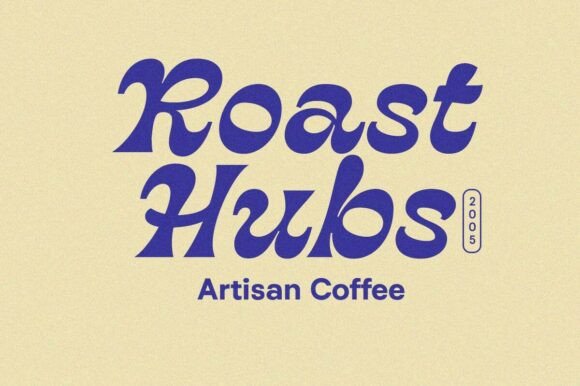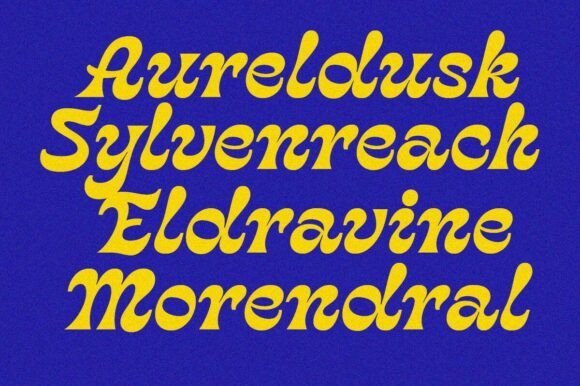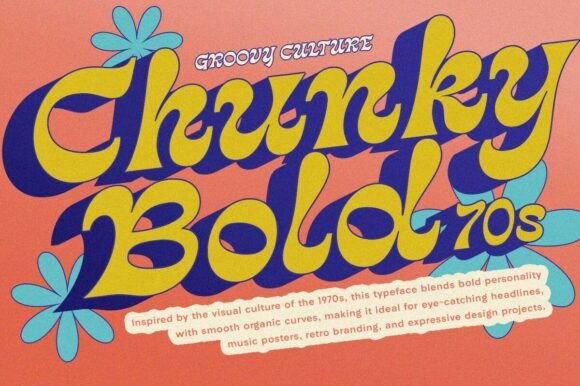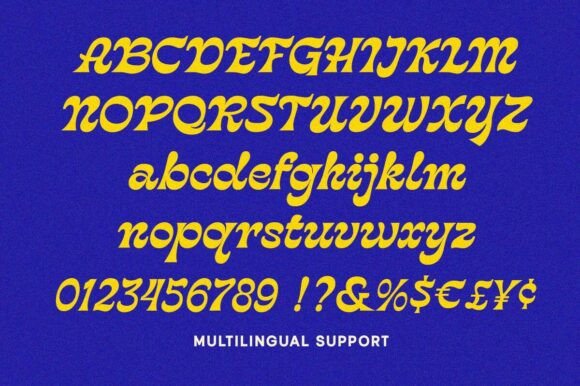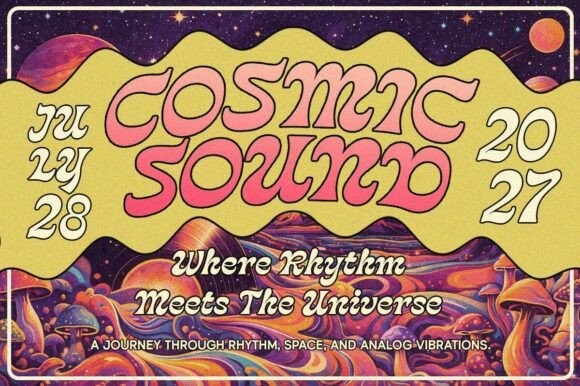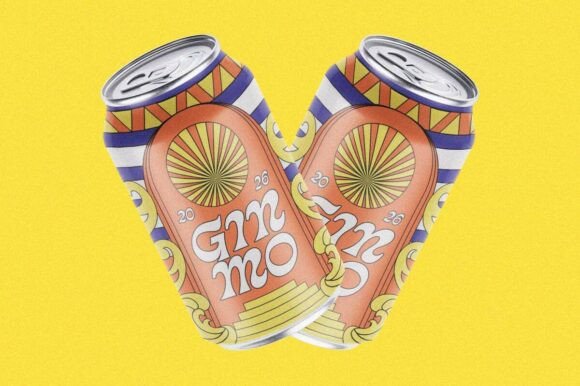
Introduction to Morheim Font
Morheim feels bold, juicy, and full of attitude—like a splash of golden type on a deep night backdrop.
With its chunky curves, soft serif edges, and slightly groovy rhythm, this typeface brings a playful retro punch while still looking clean and confident The shapes are smooth but expressive, giving every word a lively bounce that stands out instantly.